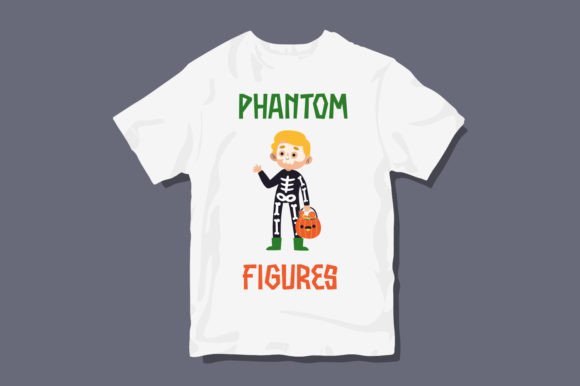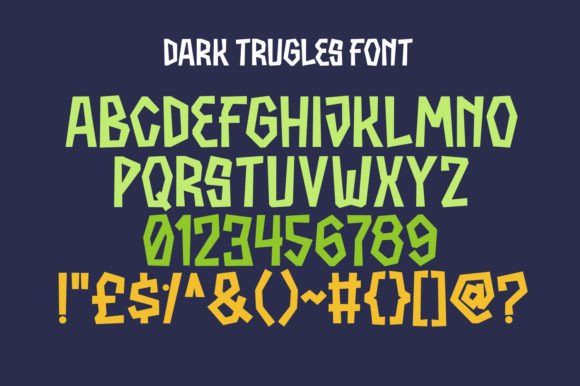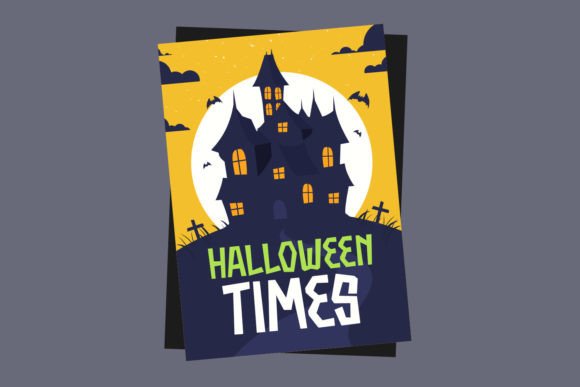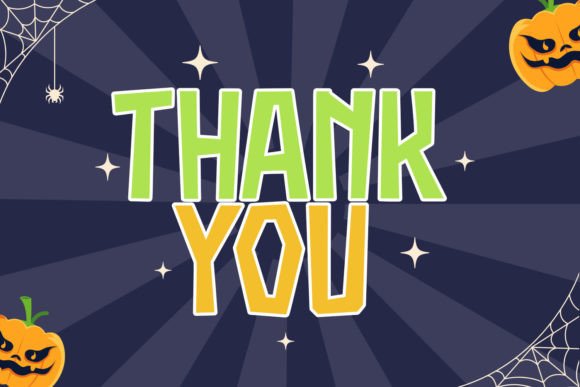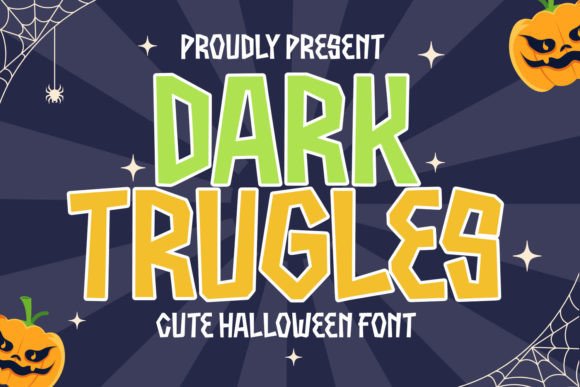
Unleash the Spooky Spirit with Dark Trugles Font: A Masterpiece for Halloween
As the witching hour approaches, designers and crafters are on the lookout for the perfect typography to add a spine-tingling touch to their Halloween-themed creations. Look no further than Dark Trugles, a hauntingly beautiful display font that’s sure to cast a spell on your audience. In this article, we’ll dive into the eerie essence of Dark Trugles and explore how this wickedly wonderful font can elevate your designs from standard to supernaturally striking.
The Birth of Dark Trugles: A Font Crafted without Love
Dark Trugles is not your average font. It’s a masterpiece born out of a desire to create something truly unique and unsettling. Crafted without an ounce of love, this font is the epitome of eerie elegance. Its creator’s goal was to design a typography that would evoke the mysterious and often frightening atmosphere of Halloween, and we must say, they’ve succeeded.
Perfect for Your Spookiest Creations
Dark Trugles is the perfect addition to any Halloween-themed project. Whether you’re designing:
- Cards: Create hauntingly beautiful greeting cards that will leave your friends and family shivering with delight.
- Invitations: Set the tone for a spooktacular party with Dark Trugles invitations that will have your guests screaming with excitement.
- Headlines: Add a touch of macabre to your blog posts, articles, or social media updates with Dark Trugles.
This versatile font is designed to transform your text into a work of art that’s sure to grab attention and leave a lasting impression.
Unveil Your Darker Side with Dark Trugles
Dark Trugles is more than just a font – it’s an experience. It’s an invitation to step into the shadows and unleash your creative inner demons. With Dark Trugles, you can:
- Create a sense of foreboding and unease
- Add a touch of mystery and intrigue
- Evoke the spirit of Halloween in your designs
So, why settle for ordinary typography when you can create something truly extraordinary with Dark Trugles?
The Features of Dark Trugles
So, what makes Dark Trugles so special? Here are just a few of its standout features:
- Eerie Elegance: Dark Trugles boasts an unmistakable eerie elegance that’s sure to send shivers down your audience’s spines.
- Versatility: Use Dark Trugles for a wide range of design projects, from digital to print.
- Easy to Use: Dark Trugles is a user-friendly font that’s easy to install and use, even for those new to font design.
Tips and Tricks for Using Dark Trugles
To get the most out of Dark Trugles, here are a few tips and tricks to keep in mind:
- Experiment with Colors: Dark Trugles looks amazing in bold, bright colors. Try pairing it with neon hues or metallic colors for an extra spooky effect.
- Play with Texture: Add some texture to your design by layering Dark Trugles over a background image or texture.
- Mix and Match: Combine Dark Trugles with other fonts for a unique and eye-catching effect.
Dark Trugles is a game-changing font that’s sure to take your Halloween designs to the next level. With its eerie elegance, versatility, and ease of use, this font is a must-have for designers and crafters looking to create something truly special. So, step into the shadows and unleash your creative potential with Dark Trugles. Your audience will thank you… or not, depending on how scared they get!